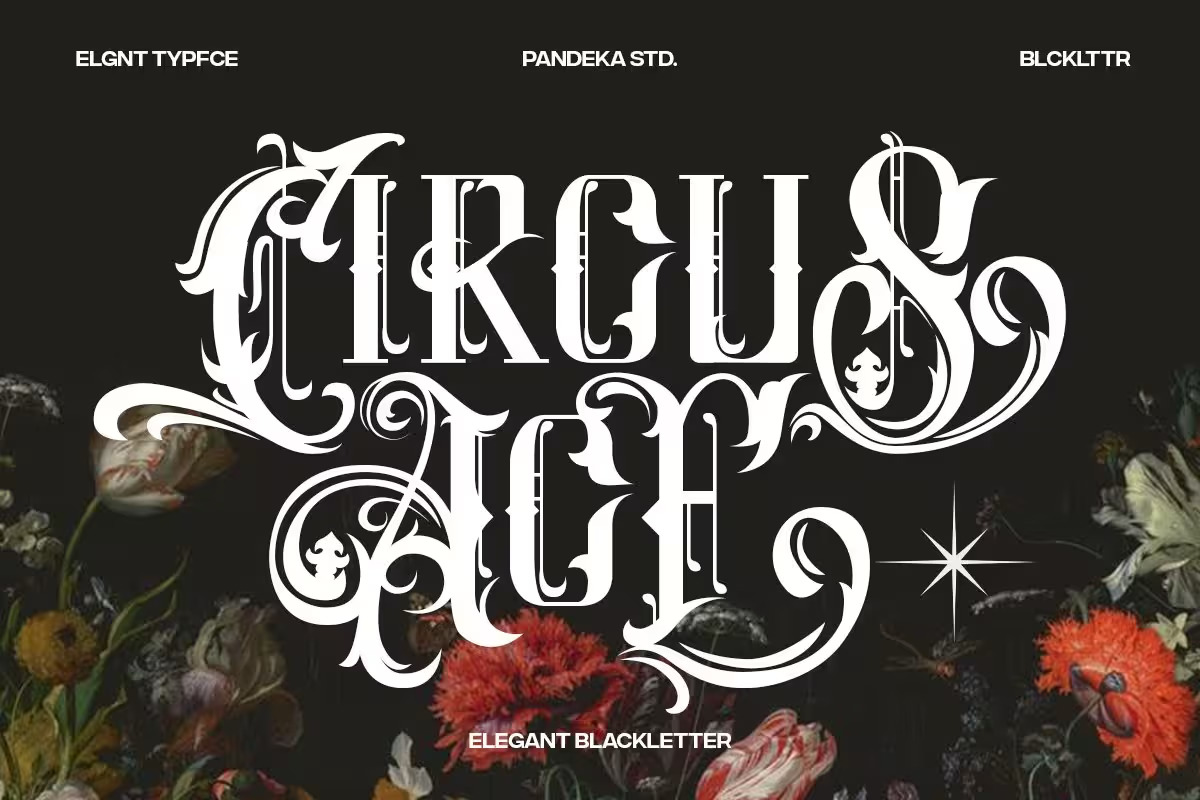
Circus Ace Font carries the whimsical spirit of vintage circus posters and carnival vibes. With its playful curves and strong presence, this decorative typeface brings energy and flair to any design. It’s perfect for logos, event posters, party invitations, children’s projects, and any other design that needs a touch of fun and nostalgia. Step right up and let your creativity shine. Download Circus Ace today and bring the big top to your next project!